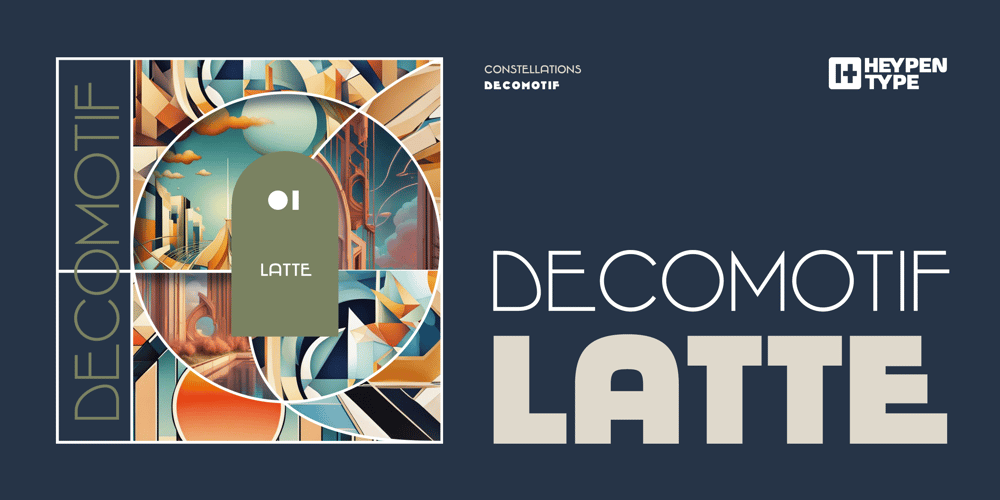
Decomotif Latte Font Family was designed by Rofiki Anas Maruf and published by Heypentype. Decomotif Latte contains 5 styles and family package options. Decomotif Latte is a part of Decomotif Typeface Constellations. The Decomotif constellations is a results from extensive 1900 Art-Deco/Art-Noveau era old-posters studies, analytics, and then interpretations. It takes one and half years to finished Decomotif Constellations typeface research. The Decomotif Latte is our first interpretations from our research results.Decomotif Latte featuring a geometric, circular, and parabolic curves with sharps edges on diagonal letter like z,w,x, and v. The overall texture of Decomotif Latte will evokes a casual, savvy, organic, low-profile emotional feels. Plus there are a bunch of ligatures that match words not only for english speaking audience, but dutch, skandinavian, french, and germans. Both ligature available on uppercase and lowercase letters.This Decomotif Latte versions are exclusively for myfonts platforms.